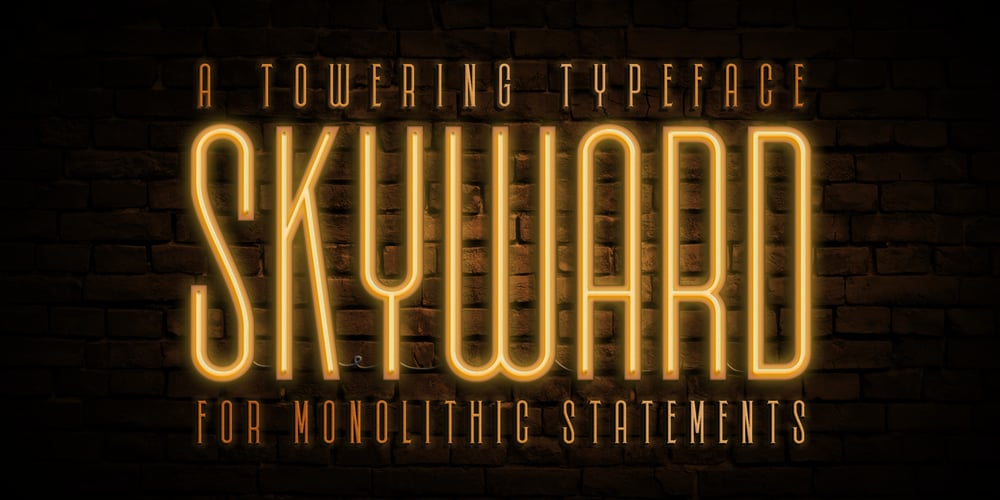
Skyward Font Family was designed by Jason Carne and published by Carmel Type Co.. Skyward contains 10 styles and family package options. Robust, towering, and geometrically refined, Skyward is a surefire classic cocktail of equal parts utility and elegance. This typeface carries a set of over 300 glyphs across 8 distinct faces. With Deco-era sensibilities and a touch of modern refinement + an all new alternative set of characters, Skyward is exceedingly effective in a diverse spectrum of situations. Skyward is the perfect selection for modern, chic, luxury products and packaging as well as bold ad campaigns, window signage, magazine headlines or the classic branding project. Skyward works best as display text. 12 styles Sans-Serif, Serif, and Rounded styles Select Stylistic alternates Upper & lowercase Numerals & punctuation 330+ glyphs per style Supports 75+ Latin based languages OTF files Designed by Jason Carne